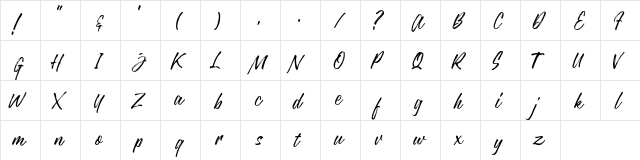
Justlyne Demo Regular
| Foundry | Runsell Studio |
| Designer | Edi Gunawan |
Design Context for Justlyne Demo Typeface
Justlyne Demo is a composed and adaptable typeface that performs quietly and consistently across a wide range of design contexts.